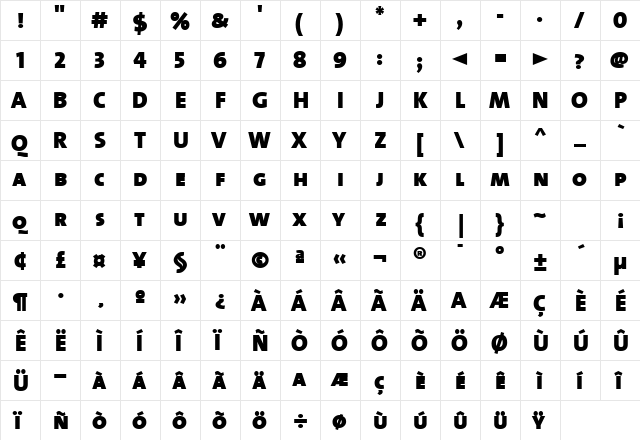
TheSansBlack Caps
Design Context for TheSansBlack Typeface
TheSansBlack is a composed and adaptable typeface that performs quietly and consistently across a wide range of design contexts.